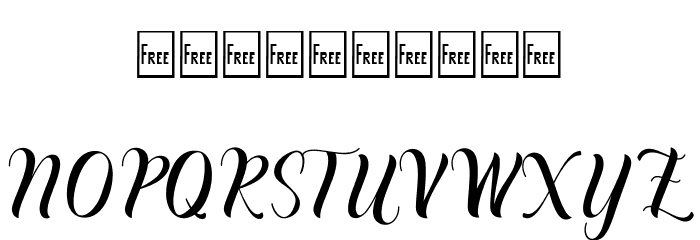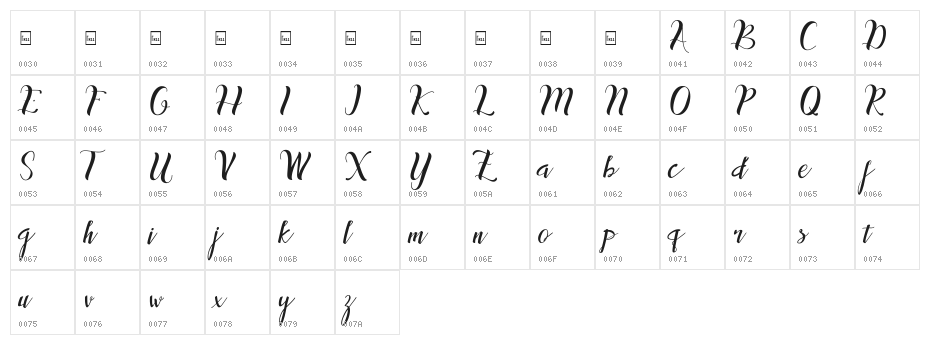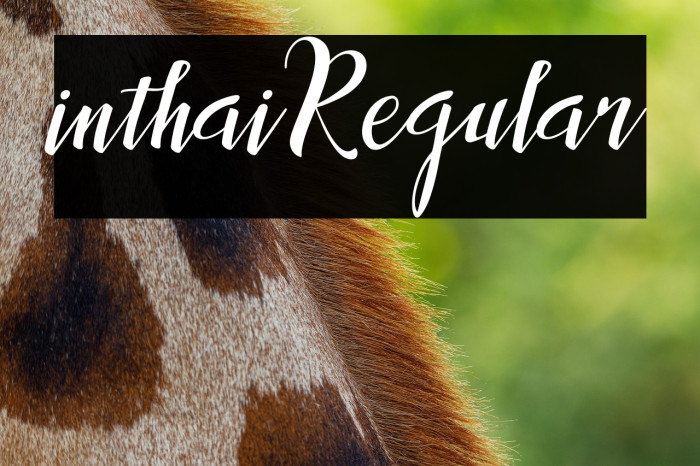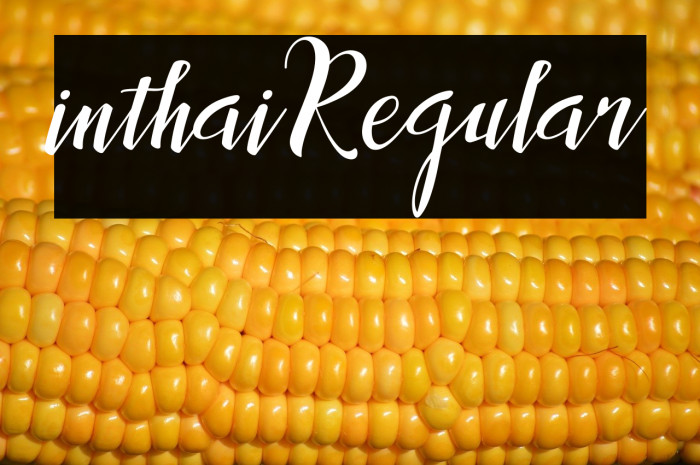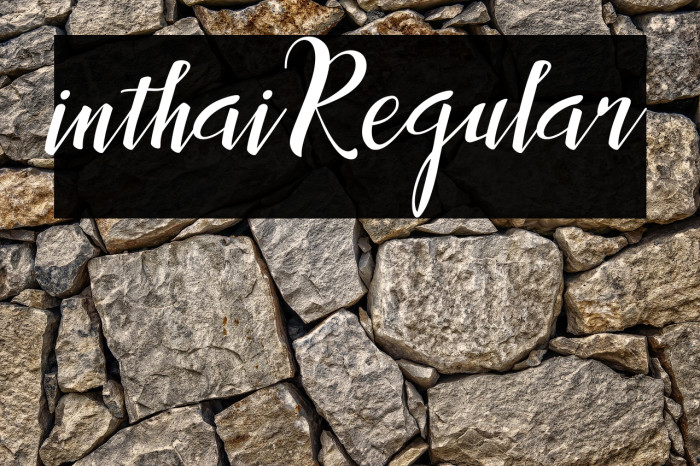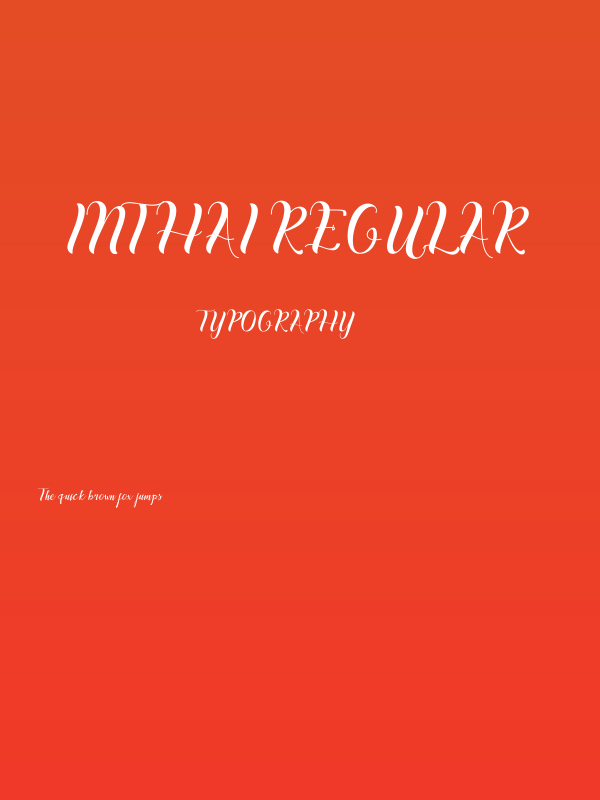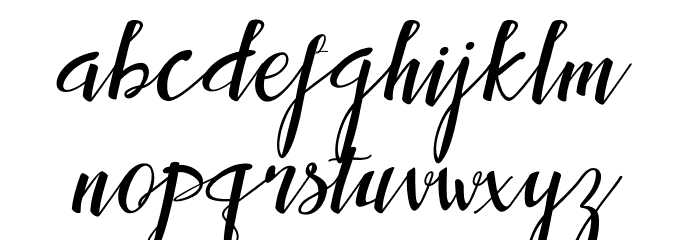
inthai-Regular Font
inthai-Regular Description
This font features an elegant and flowing script style, characterized by its smooth, cursive strokes and graceful curves. The uppercase letters are ornate, with sweeping lines that give a sense of movement and sophistication. The lowercase letters maintain a consistent style, with elongated ascenders and descenders that enhance the font's fluidity. The numbers and special characters are designed to match the overall aesthetic, ensuring a cohesive appearance across all text. This font is perfect for projects that require a touch of elegance and refinement, such as invitations, branding, and decorative headings.
| Proposed Projects | Ideal for wedding invitations, luxury branding, decorative headings, and elegant stationery. |